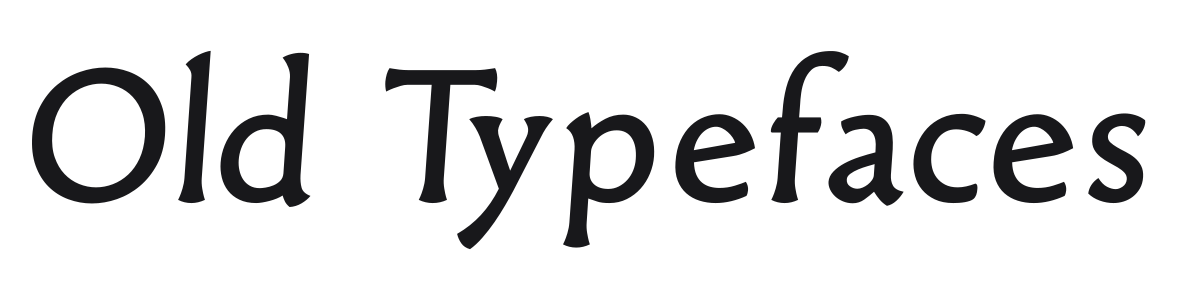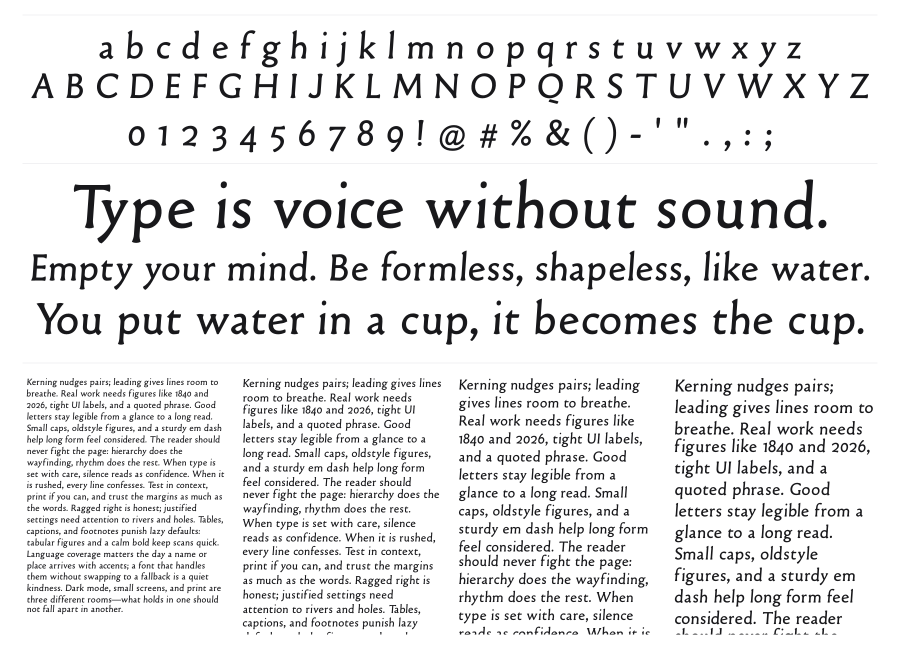
Old Typefaces
by Manfred Klein · Website
Old Typefaces is a humanist serif rooted in Renaissance old-style tradition, with bracketed serifs and moderate stroke contrast that keep it warm and easy to read. The slightly informal terminals give it an artisanal quality that separates it from colder classical serifs. It sits comfortably in book text, editorial layouts, and anywhere that needs a readable but characterful serif.